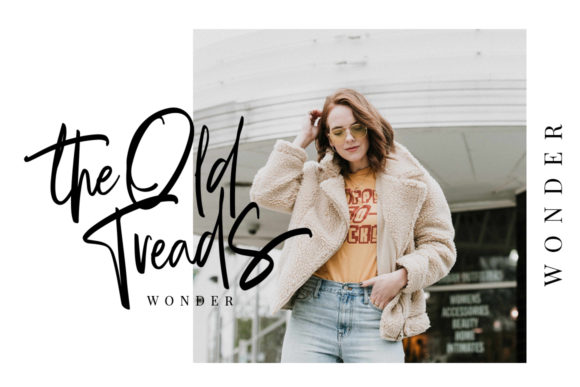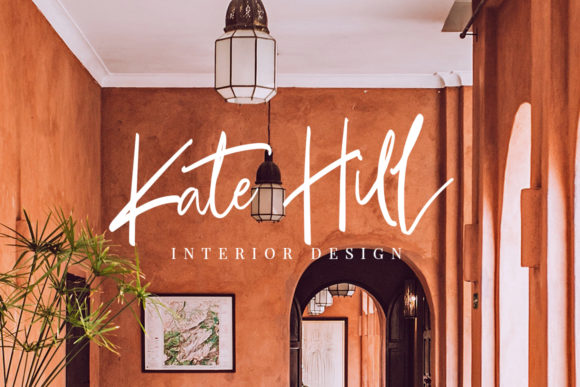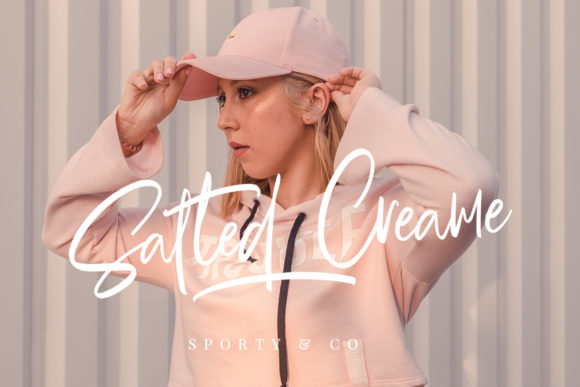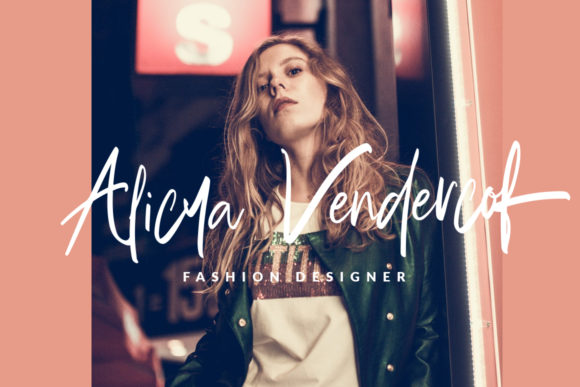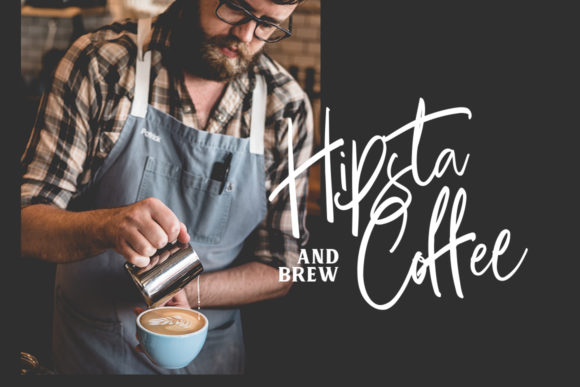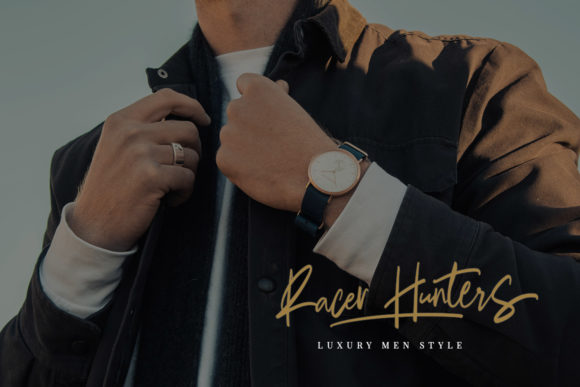
Discover the Elegance of Briliantine Script Font
In the world of typography, few fonts manage to capture the essence of elegance and style as effectively as the Briliantine Script Font. This fashionable and super-chilled calligraphy font has been making waves in the design community, and for good reason. With its beautiful swashes and availability in both regular and italic styles, Briliantine offers a stunning typographic harmony that can elevate a wide range of design projects.
What Makes Briliantine Stand Out?
Briliantine’s claim to fame lies in its unique blend of modern flair and classic calligraphy. The font’s design is characterized by its fluid strokes, intricate swashes, and a high degree of readability. Whether you’re working on a logo, a wedding invitation, a social media post, or an advertisement, Briliantine brings a touch of sophistication and charm that is hard to match.
Key Features of Briliantine Script Font
- Fashionable and Elegant: Briliantine boasts a contemporary yet timeless elegance that makes it perfect for designers looking to add a touch of class to their projects.
- Beautiful Swashes: The font comes with stunning swashes that can be used to add a decorative touch to your designs. These swashes can be used at the beginning, end, or even in the middle of words for a more artistic look.
- Regular and Italic Styles: Briliantine offers two styles – regular and italic. This versatility allows designers to create a hierarchy of text or simply add variation to their design.
- Wide Range of Applications: From logos and branding to wedding designs, social media posts, advertisements, and product designs, Briliantine’s versatility shines through in its adaptability to various design projects.
Applications of Briliantine Script Font
One of the most significant advantages of Briliantine is its wide range of applications. Here are a few areas where this font truly excels:
Logos & Branding
Creating a memorable brand identity is crucial for any business. Briliantine’s elegant and sophisticated look makes it an excellent choice for logos, ensuring your brand stands out and communicates its values effectively.
Wedding Designs
Weddings are a celebration of love and beauty, and the stationery and decor should reflect that. Briliantine’s romantic and stylish appearance makes it perfect for wedding invitations, save-the-date cards, and more.
Social Media Posts
In the digital age, social media is a vital platform for communication and expression. Using Briliantine for social media posts can add a professional yet personal touch, making your content more engaging and shareable.
Advertisements & Product Designs
For advertisements and product designs, capturing the audience’s attention is key. Briliantine’s unique and stylish look can help your product or service stand out in a crowded market, making it more noticeable and appealing to potential customers.
Briliantine Script Font is a versatile and stylish addition to any designer’s toolkit. Its elegant appearance, beautiful swashes, and availability in regular and italic styles make it suitable for a vast array of projects. Whether you’re a professional designer or a DIY enthusiast, Briliantine offers the perfect blend of fashion and functionality to elevate your designs. So, why settle for ordinary when you can make your designs extraordinary with Briliantine?
With Briliantine Script Font, the possibilities are endless. Take your designs to the next level by incorporating this stunning font into your projects. Whether you’re aiming for elegance, charm, or a modern twist, Briliantine is sure to exceed your expectations.